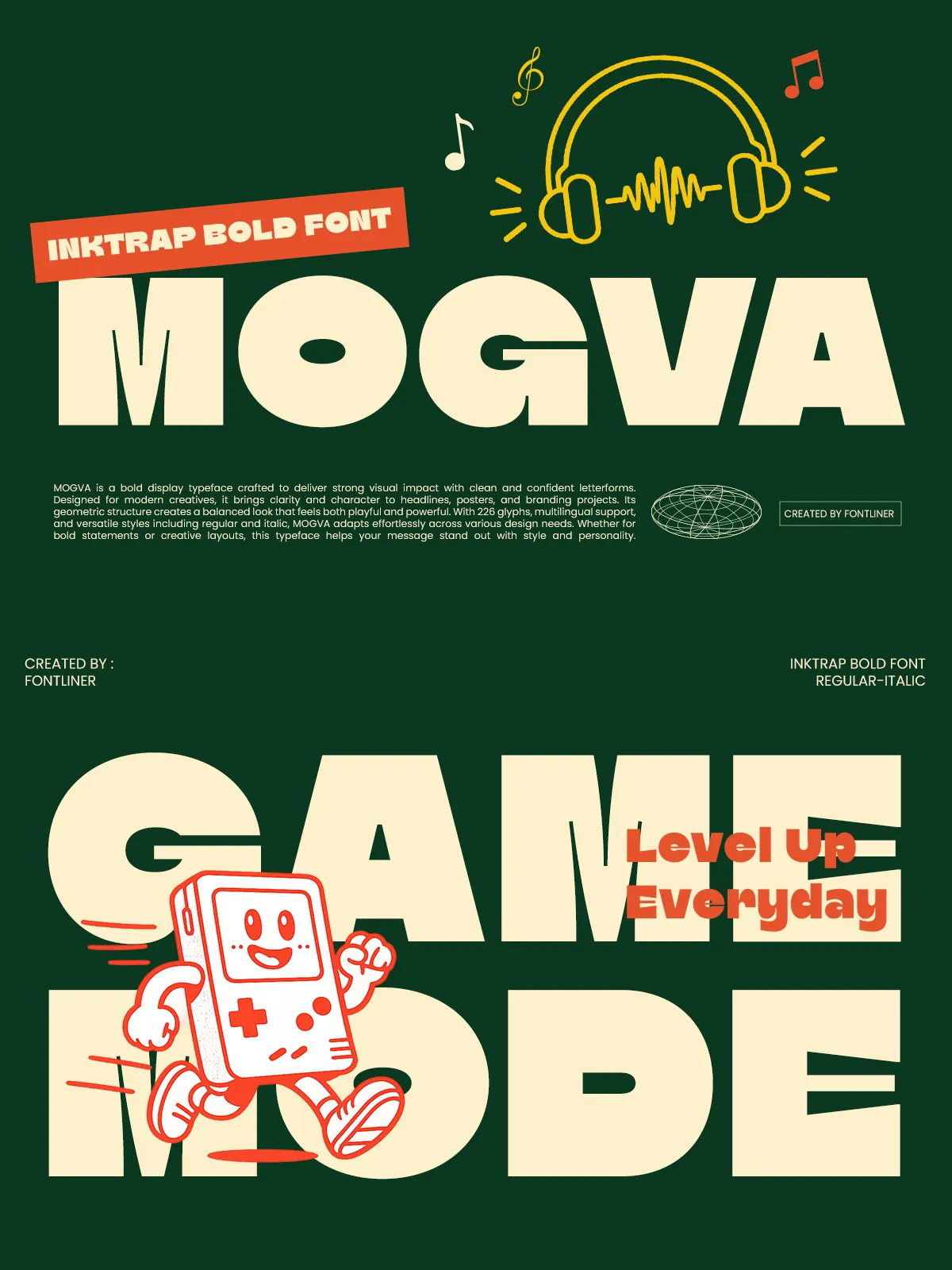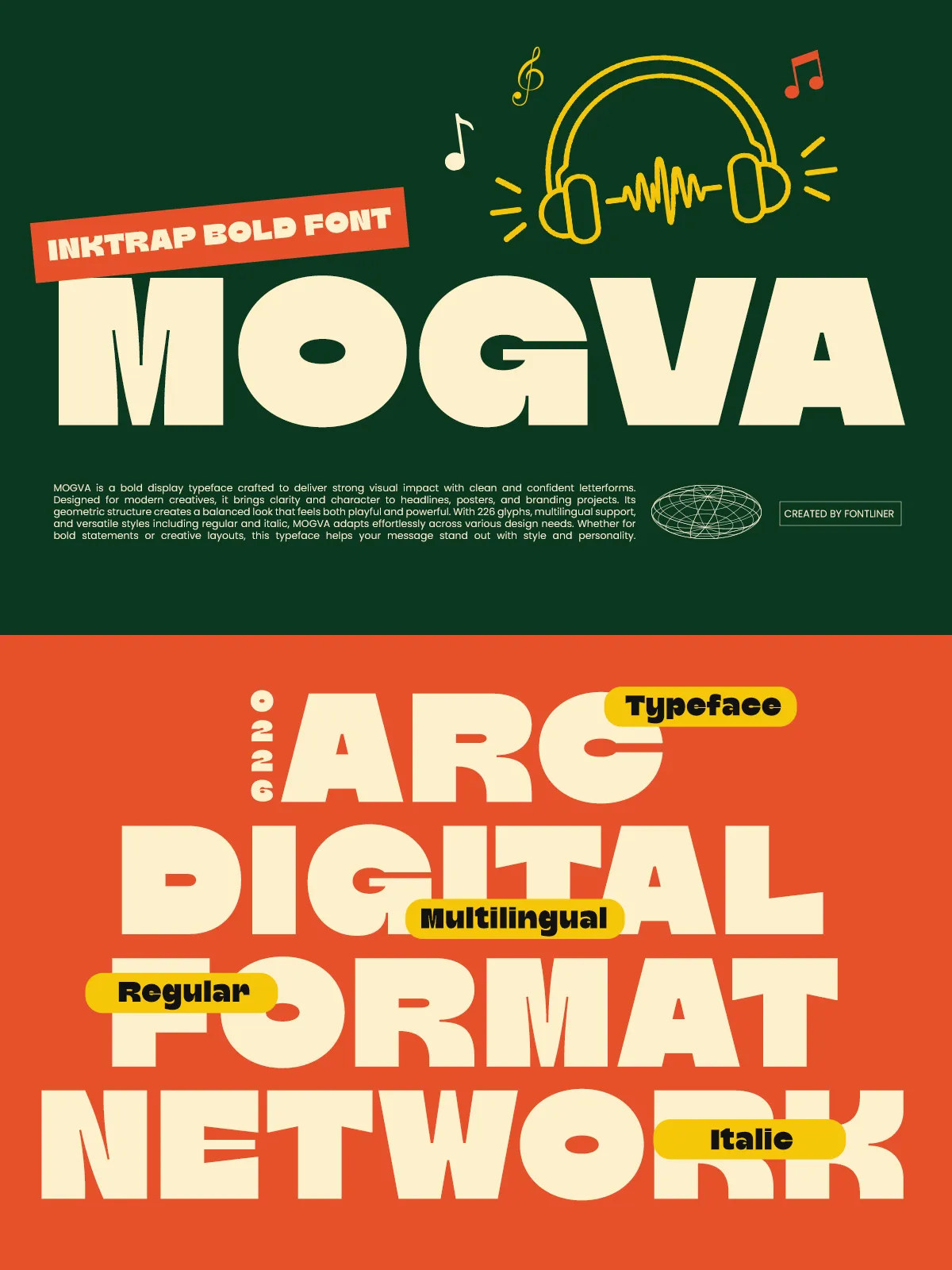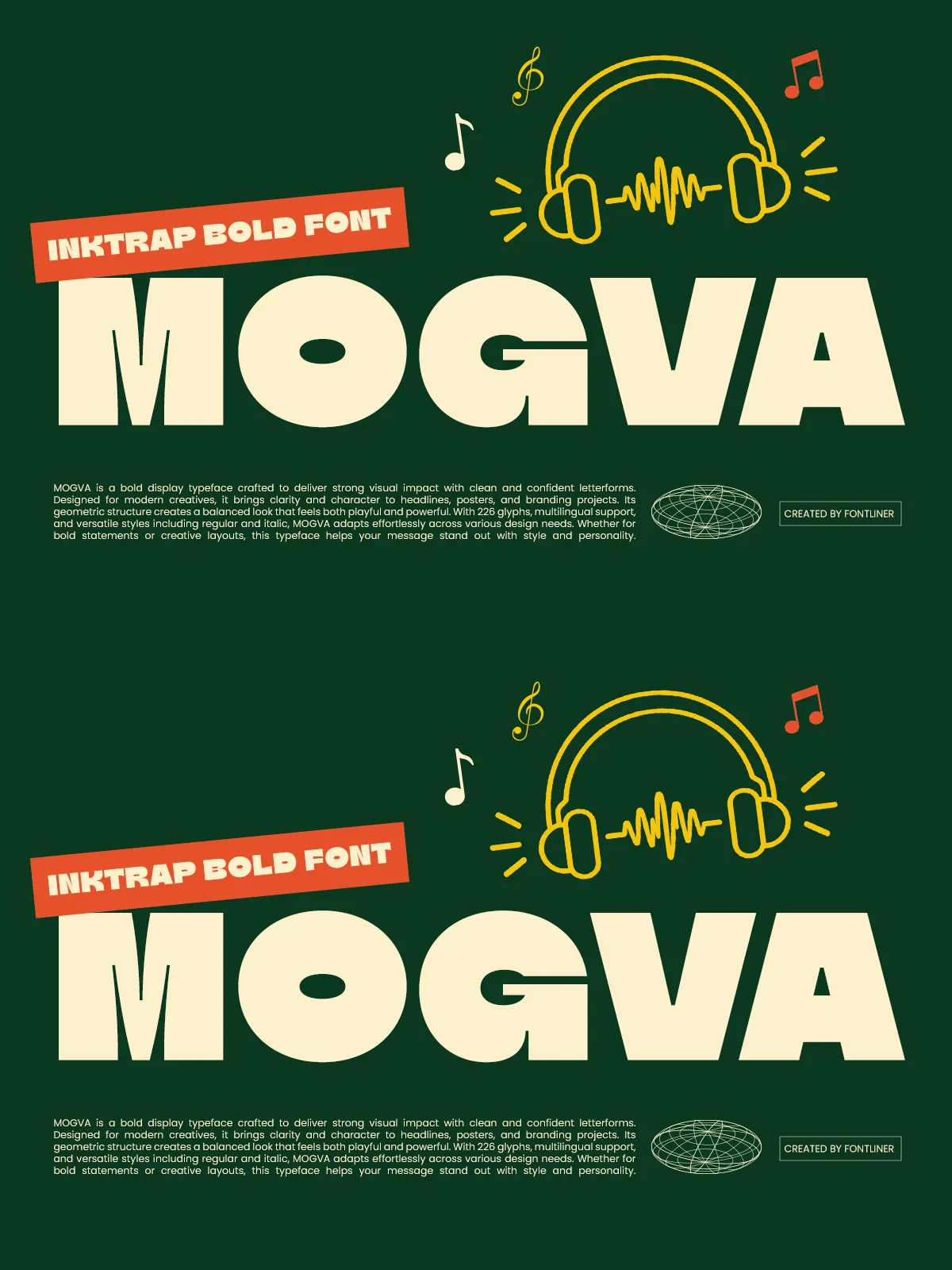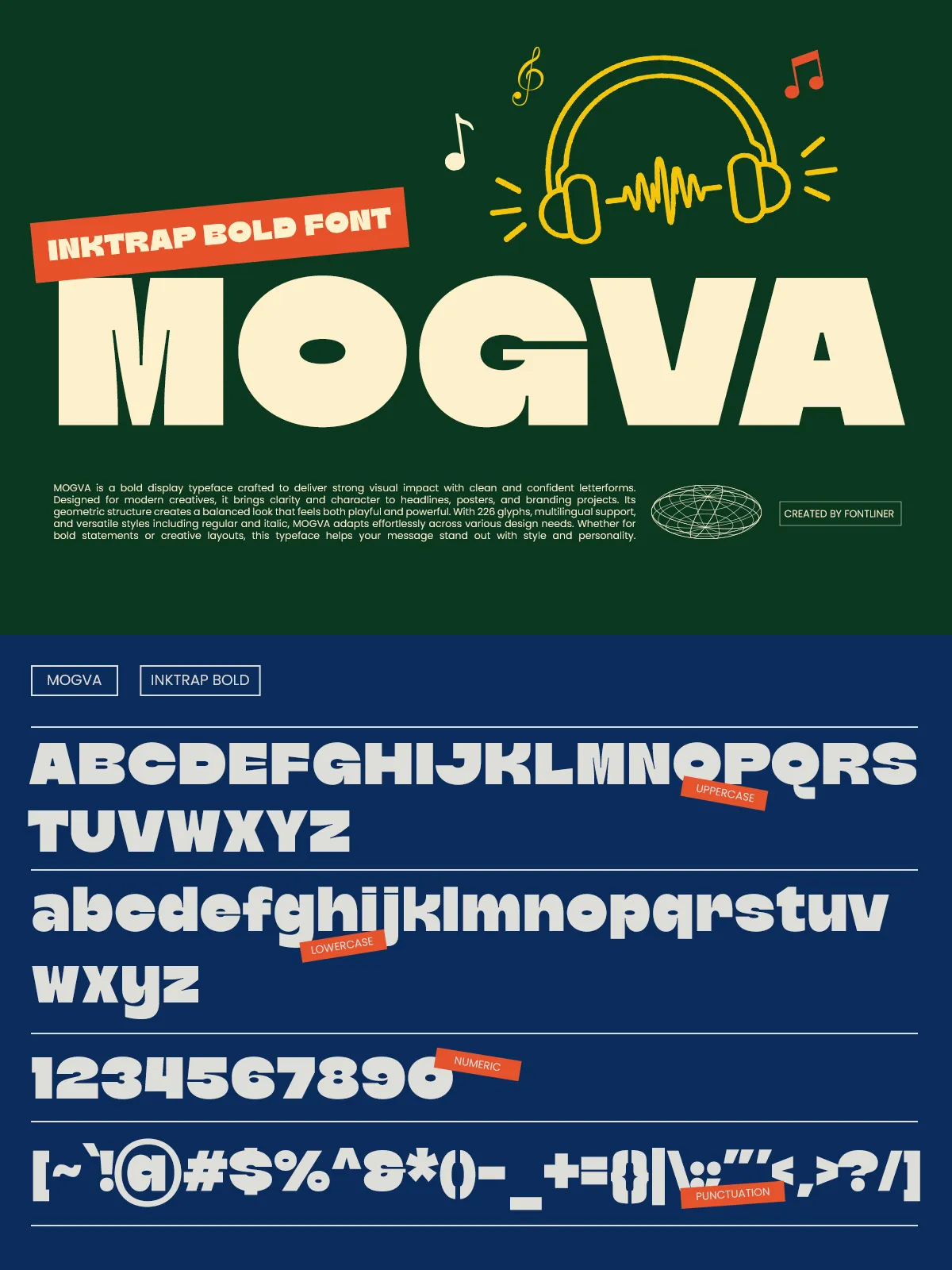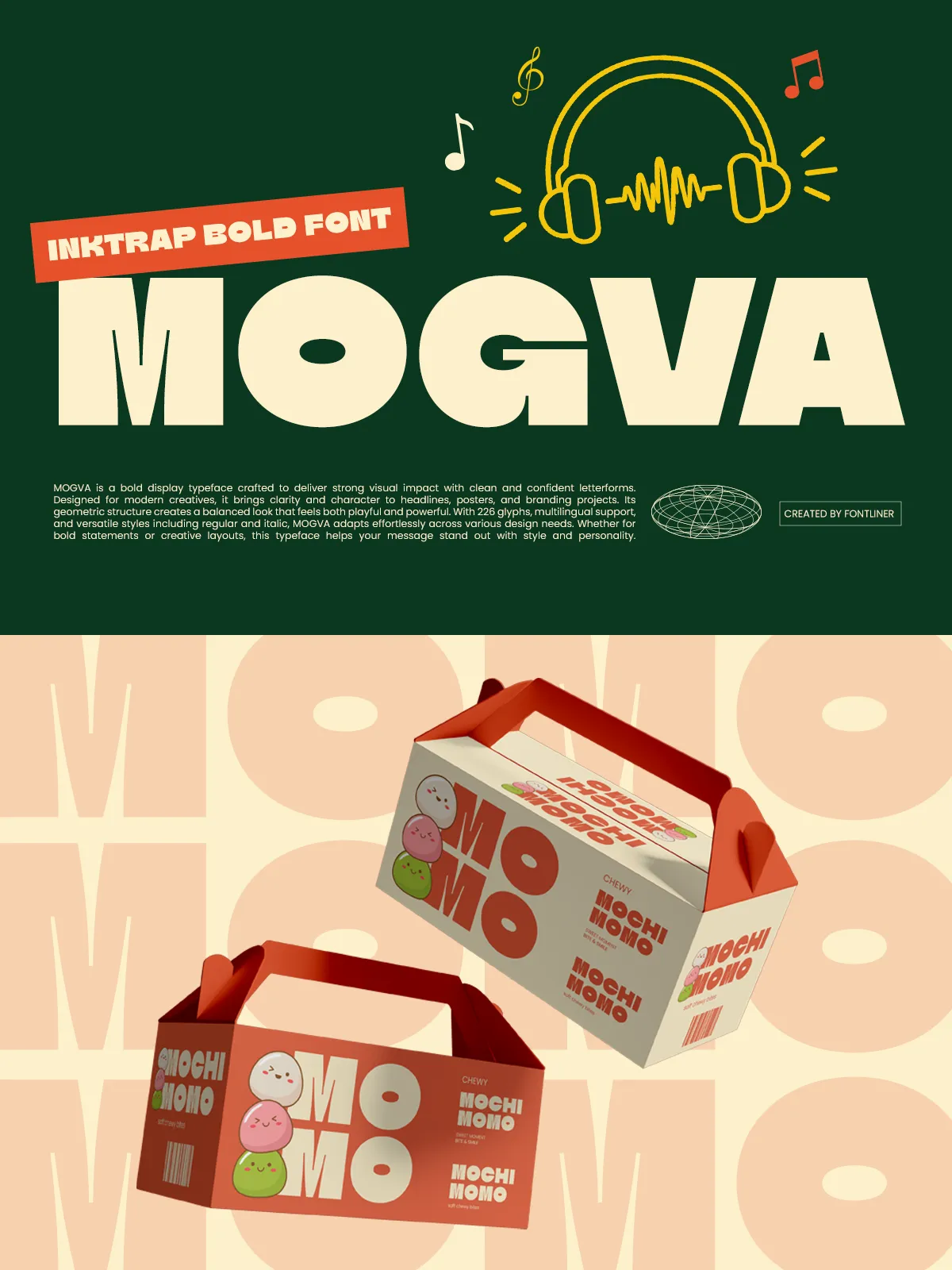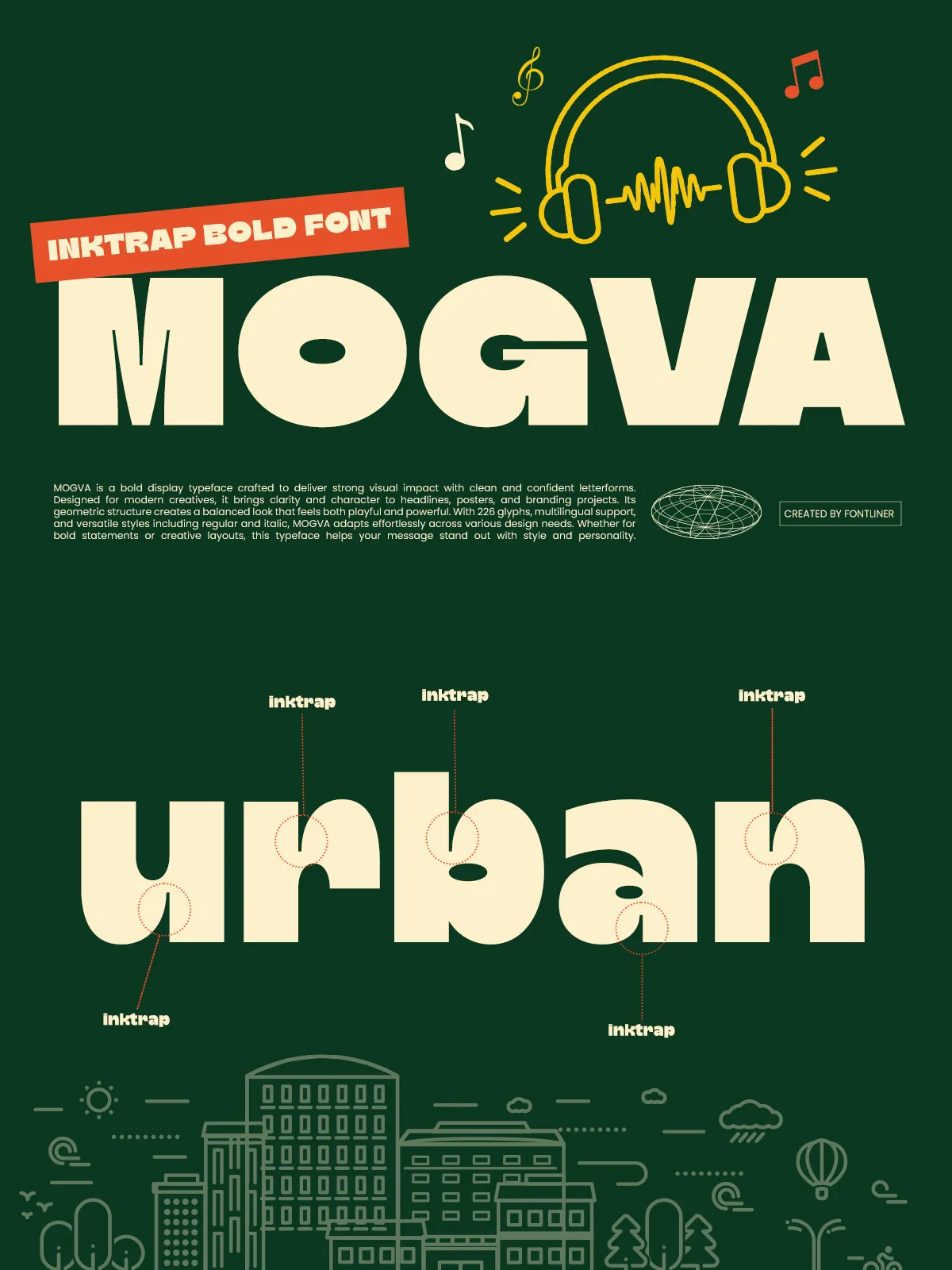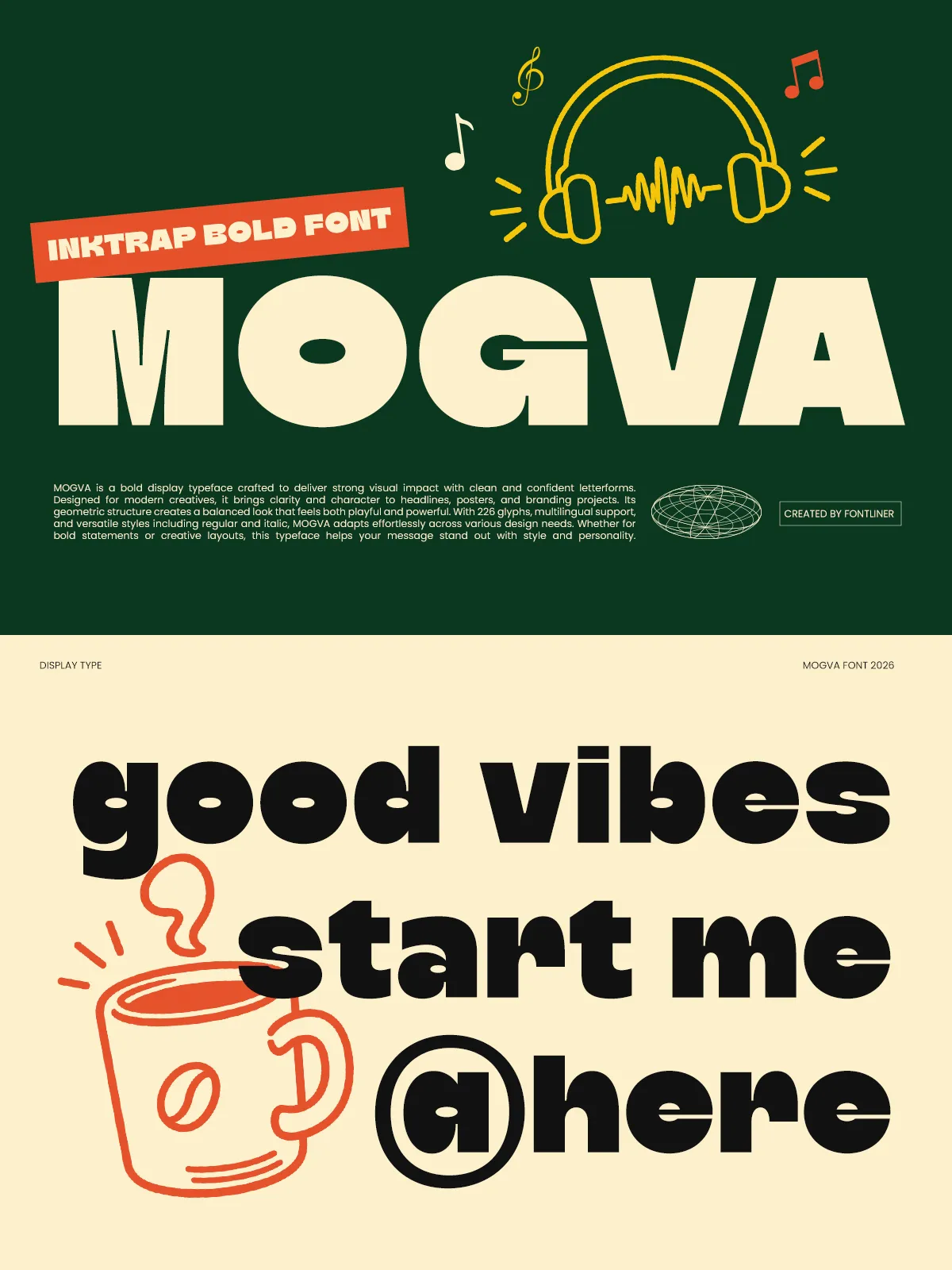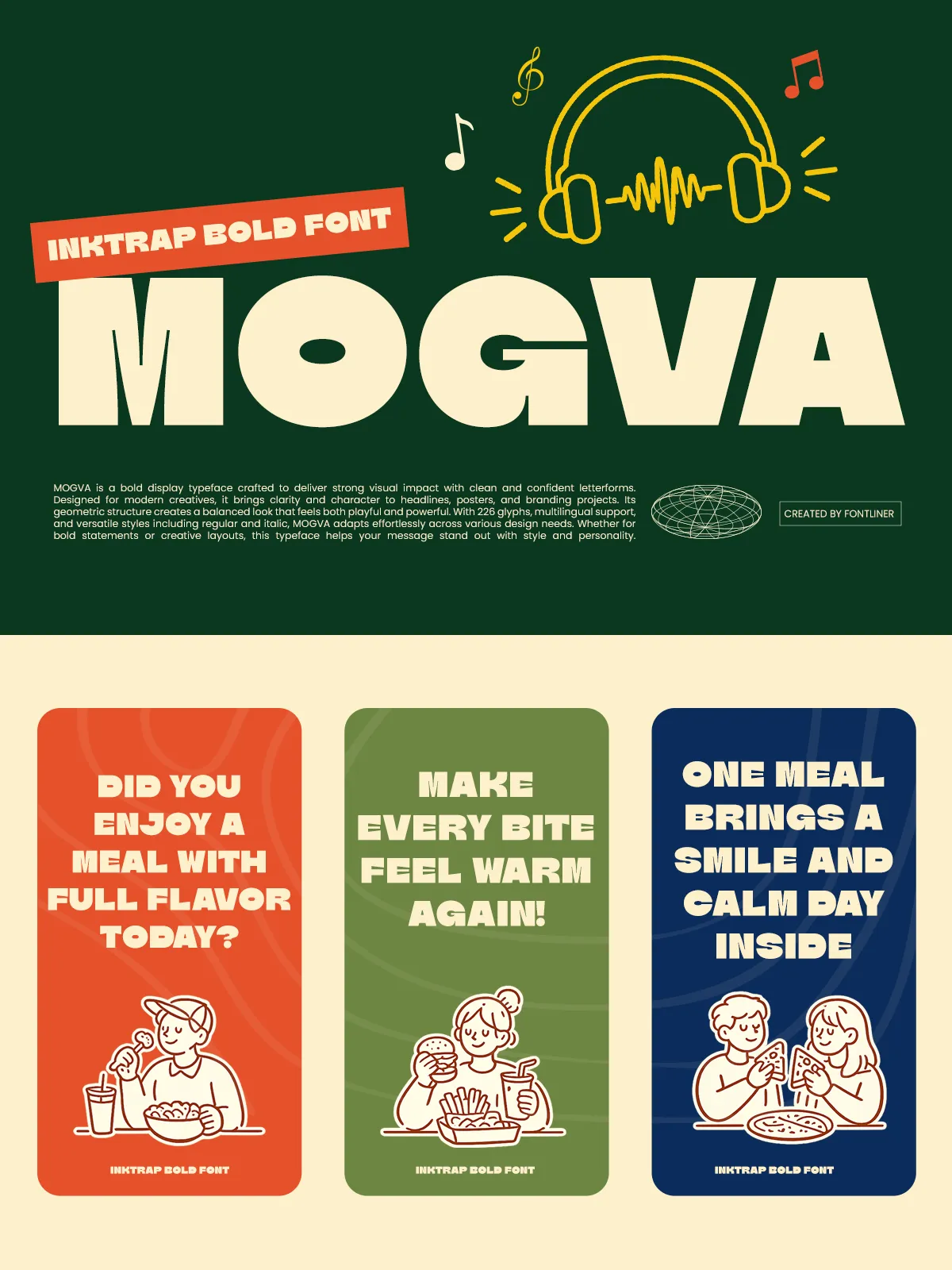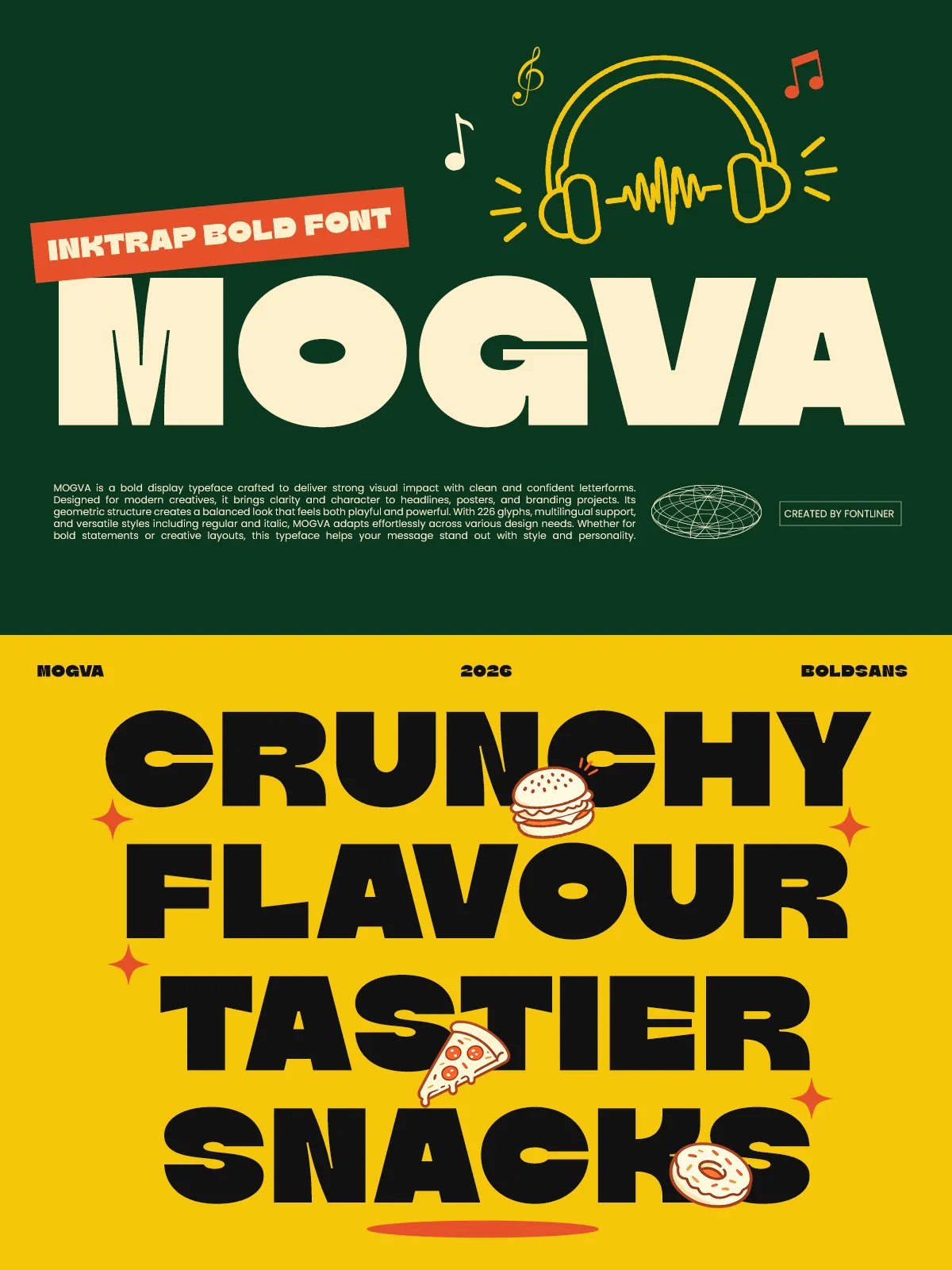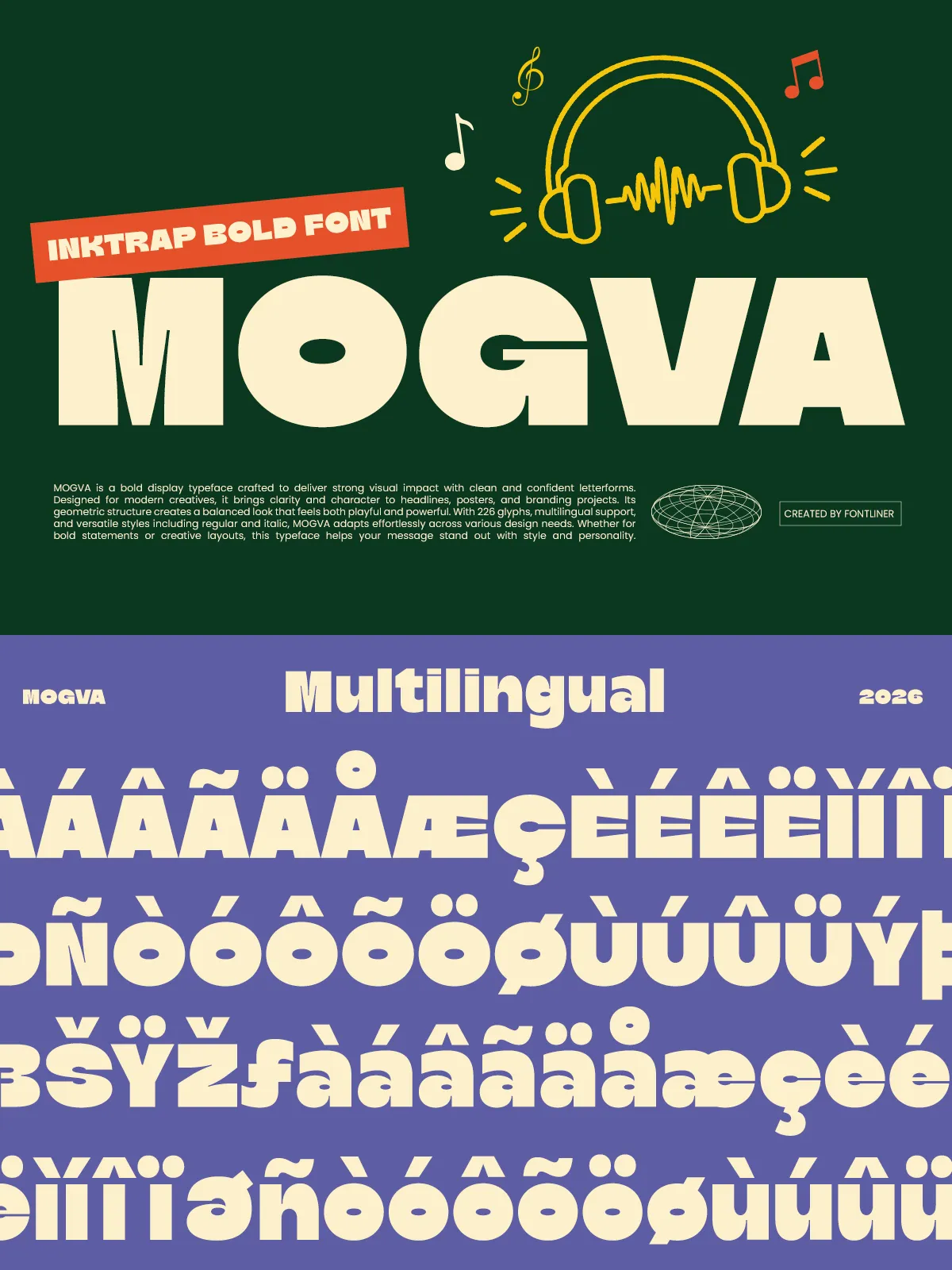
Introducing Mogva, a striking display font engineered to inject strong energy and playful character into your most ambitious creative projects. With its distinctively chunky letterforms, rounded geometry, and a confident retro-inspired aesthetic, Mogva creates eye-catching visuals that demand attention. This typeface is not merely a font; it is a tool for creating impactful headlines, expressive branding, and memorable visual identities.
Mogva bridges the gap between modern design trends and nostalgic charm. Its bold structure ensures high readability, while its fun personality makes every design feel dynamic and energetic. Whether you are working on a digital campaign, a physical product package, or a large-scale poster, Mogva adapts seamlessly to maintain its visual integrity across different layouts and mediums.
Key Features and Specifications
Mogva is crafted for designers who prioritize versatility without sacrificing style. The font family is comprehensive, ensuring that you have all the necessary tools to create cohesive and professional designs. Here is what you get with the Mogva font family:
- Complete Character Sets: The package includes full Uppercase and Lowercase characters, allowing for complete typographic control in both headline and body text contexts (where appropriate for display use).
- Regular & Italic Styles: Choose between the standard bold Regular style for a strong, stable presence, or the Italic style to add dynamic movement and emphasis to your text.
- Numerals & Punctuation: Access to carefully designed numbers and punctuation marks ensures that your data and dialogue are as stylish as your headlines, maintaining visual consistency throughout your design.
- Extensive Multilingual Support: Mogva supports a wide range of languages, making it an excellent choice for international projects. Design for global audiences without compromising on typography.
- Retro-Modern Aesthetic: The unique blend of chunky forms and rounded edges creates a look that is both timeless and contemporary, perfect for standing out in crowded markets.
Ideal Applications for Mogva
The versatility of Mogva makes it suitable for a diverse array of industries and project types. Its bold nature makes it particularly effective in the following areas:
1. Branding and Identity Design
Create a memorable brand identity that sticks in the consumer’s mind. Mogva is ideal for logo design, brand guidelines, and marketing collateral. Its playful yet bold character works exceptionally well for lifestyle brands, creative agencies, and startups looking to establish a fun, approachable, yet professional image.
2. Poster and Event Design
Design posters that people cannot ignore. Whether it is a concert poster, a festival announcement, or a community event flyer, Mogva’s large-scale readability and retro charm make it a perfect choice. The font’s weight ensures that your message is seen from a distance, while its unique shape invites closer inspection.
3. Music and Entertainment
From album covers to tour banners, Mogva fits perfectly within the music industry. Its energetic vibe complements various genres, particularly those with a retro, funk, or pop influence. Use it to create visually striking music covers that reflect the energy of the sound.
4. Gaming and Digital Content
In the world of gaming and digital media, visual impact is key. Mogva is perfect for game titles, user interface elements, and streaming overlays. It also excels in creating engaging YouTube thumbnails and social media graphics, where bold text needs to capture attention instantly in a small space.
5. Streetwear and Fashion
Tap into the trend of retro-inspired fashion. Mogva is ideal for t-shirt graphics, clothing labels, and sneaker branding. Its chunky aesthetic aligns perfectly with streetwear culture, offering a bold statement that resonates with younger demographics.
6. Packaging and Product Design
Make your products stand out on the shelf. Mogva is excellent for food branding, beverage labels, and consumer goods packaging. Its playful nature can make products seem more inviting and fun, particularly for items targeting children or families, such as snacks, toys, and household cleaners.
7. Children’s Branding
Create content that appeals to young audiences. Mogva’s rounded, friendly shapes are gentle and approachable, making it suitable for educational materials, children’s book covers, and branding for kids’ entertainment. It combines fun with clarity, ensuring that the message is easily understood.
Why Choose Mogva?
In a design landscape often dominated by minimalism and thin lines, Mogva stands out by embracing boldness and playfulness. It allows designers to break free from conventional constraints and explore a more expressive form of communication. The font’s retro roots provide a sense of familiarity and warmth, while its modern execution ensures it remains relevant and fresh.